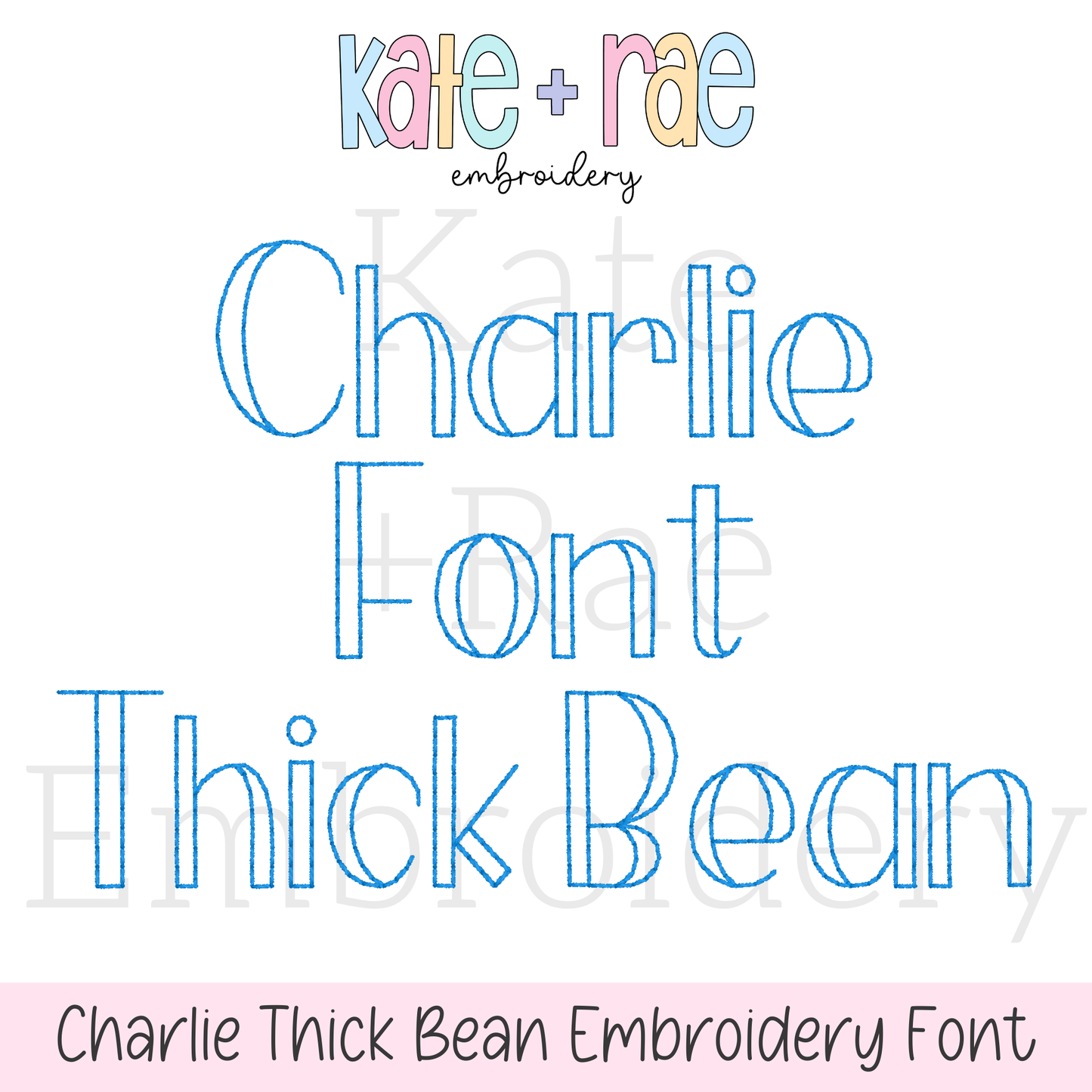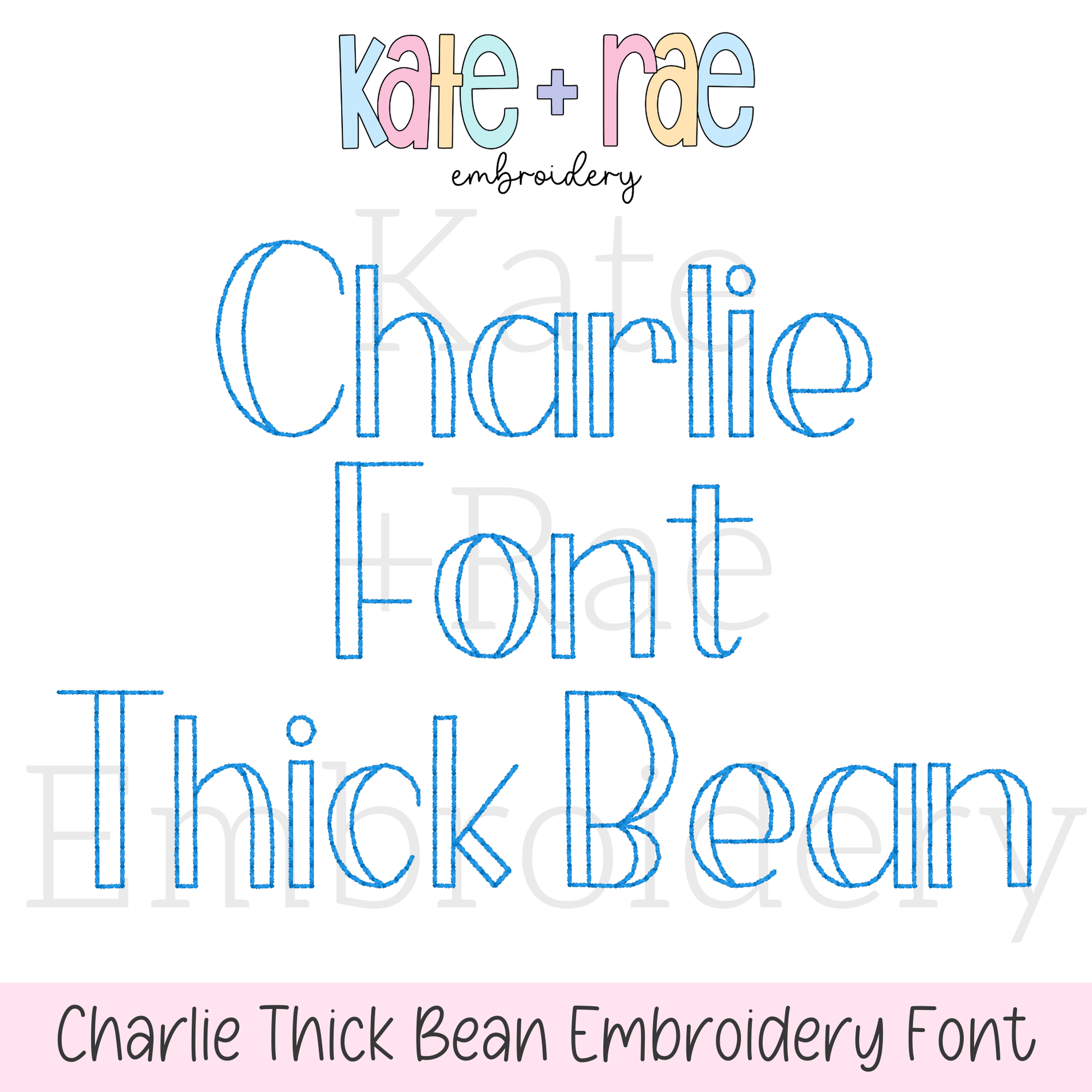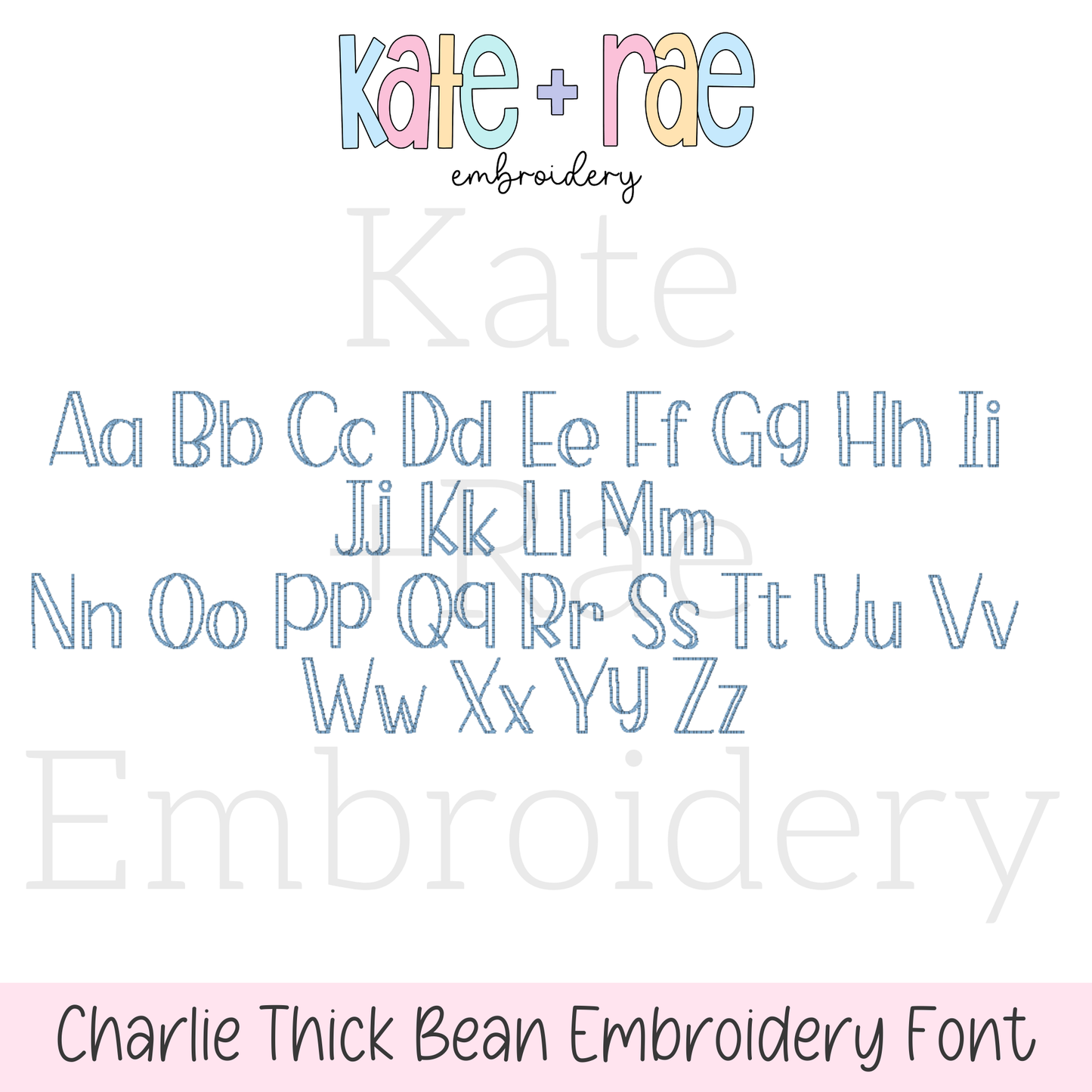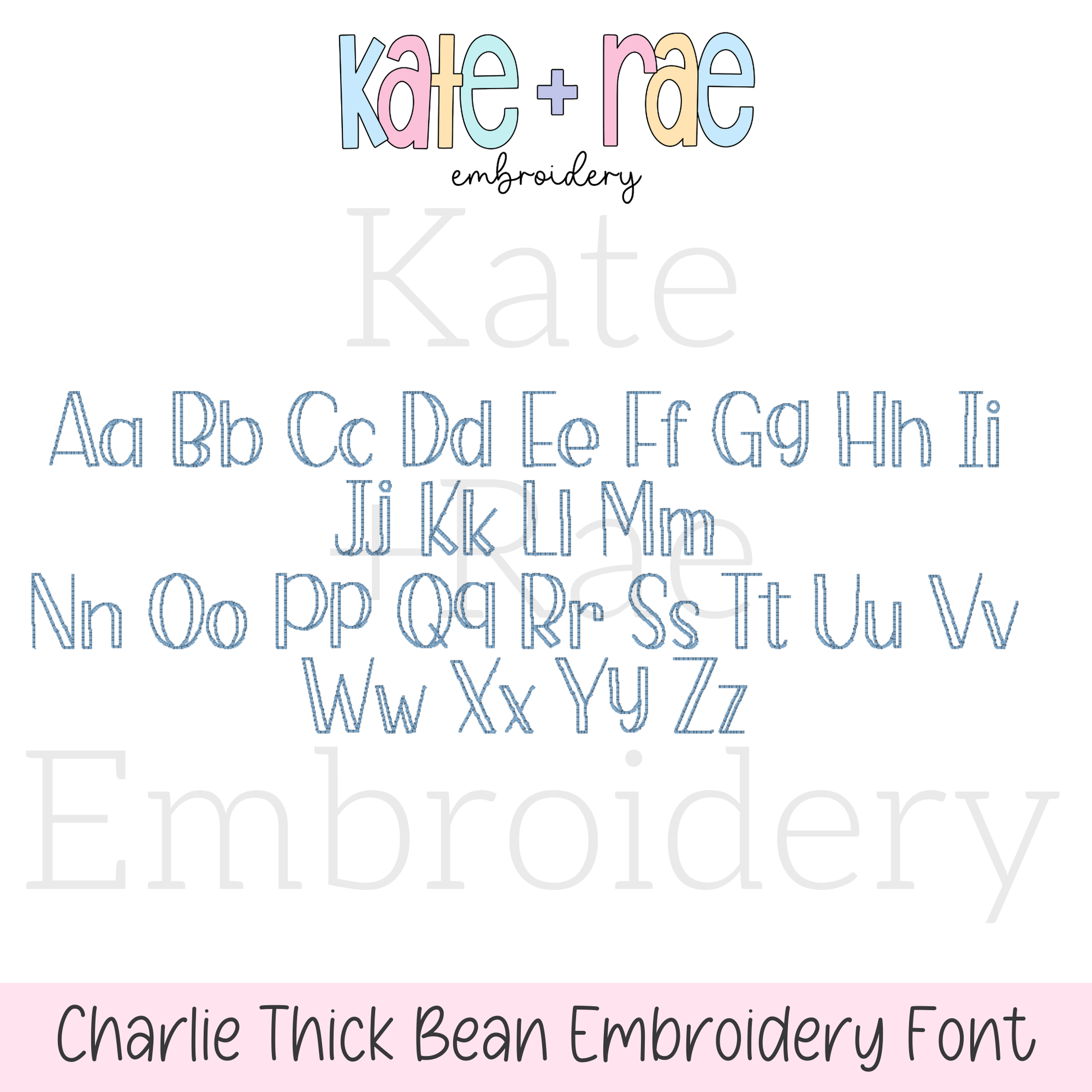
Charlie Thick Bean Stitch Embroidery Font
Meet Charlie Thick, a bold bean stitch font with extra texture! Personalize names, monograms, sweatshirts, and kids' outfits.